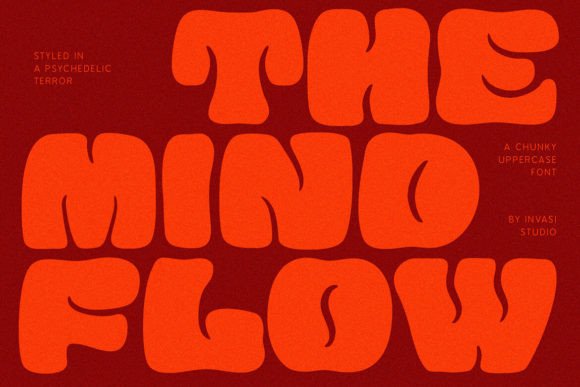
Mindflow Font: A Chic and Playful Display Font for Modern Designs
In the world of typography, fonts play a crucial role in conveying the tone and personality of a brand or design. When it comes to creating visually stunning and attention-grabbing designs, the right font can make all the difference. This is where Mindflow Font comes in – a fat, chunky display font that exudes chic elegance and playfulness. In this article, we’ll dive into the world of Mindflow Font, exploring its unique features, design inspiration, and versatility in various design applications.
Design Inspiration: A Nod to the 1970s Psychedelic Movement
Mindflow Font draws inspiration from the classic psychedelic movements of the 1970s. The font’s bold design and irregular curves evoke a sense of nostalgia and playfulness, reminiscent of the era’s iconic typography. The 1970s psychedelic movement was characterized by vibrant colors, experimental shapes, and a sense of freedom and creativity. Mindflow Font captures the essence of this movement, infusing it with a modern twist.
Key Features: Irregular Curves and Handmade Feel
One of the standout features of Mindflow Font is its irregular curve and surface, which gives it a charmingly handmade feel. This unique characteristic sets it apart from more traditional fonts, adding a touch of personality and whimsy to any design. The font’s bold and chunky design makes it perfect for creating eye-catching headlines, titles, and logos.
Flexibility and Versatility: The Key to Mindflow
The key to Mindflow Font’s success lies in its flexibility and versatility. This font can be used for a wide range of design applications, including packaging design, poster design, logo design, and visual identity design. Whether you’re creating a bold and playful brand identity or a sophisticated and elegant packaging design, Mindflow Font adapts effortlessly to any design style.
PUA Encoding: Easy Access to Glyphs and Ligatures
Mindflow Font is PUA (Private Use Area) encoded, which means that users can access all the amazing glyphs and ligatures with ease. This feature makes it easy to get creative with the font, experimenting with different combinations of characters and designs. With PUA encoding, designers can unlock the full potential of Mindflow Font, taking their designs to the next level.
Design Applications: Where to Use Mindflow Font
Mindflow Font’s versatility makes it suitable for a wide range of design applications. Here are some ideas on where to use this amazing font:
- Packaging Design: Add a touch of sophistication and charm to your packaging designs with Mindflow Font. Its bold and playful design makes it perfect for product labels, packaging, and branding.
- Poster Design: Create eye-catching posters and flyers with Mindflow Font. Its irregular curves and handmade feel make it perfect for promoting events, concerts, or festivals.
- Logo Design: Use Mindflow Font to create unique and memorable logos for your brand. Its bold and chunky design makes it perfect for creating a lasting impression.
- Visual Identity Design: Develop a cohesive brand identity with Mindflow Font. Its flexibility and versatility make it suitable for creating a consistent visual language across various design materials.
Tips and Tricks: Getting the Most Out of Mindflow Font
To get the most out of Mindflow Font, here are some tips and tricks to keep in mind:
- Experiment with Ligatures: Take advantage of Mindflow Font’s PUA encoding and experiment with different ligatures and glyphs. This will help you create unique and creative designs.
- Play with Colors: Mindflow Font looks amazing with bold and bright colors. Experiment with different color schemes to create visually stunning designs.
- Mix and Match: Combine Mindflow Font with other fonts to create a unique and interesting visual hierarchy.
Mindflow Font is a versatile and stylish display font that brings a touch of modern flair to any design project. Its unique features, design inspiration, and flexibility make it perfect for a wide range of design applications. With its PUA encoding and handmade feel, Mindflow Font is sure to capture the hearts of designers and brands looking to make a statement. So why wait? Get creative with Mindflow Font and let your imagination flow effortlessly!